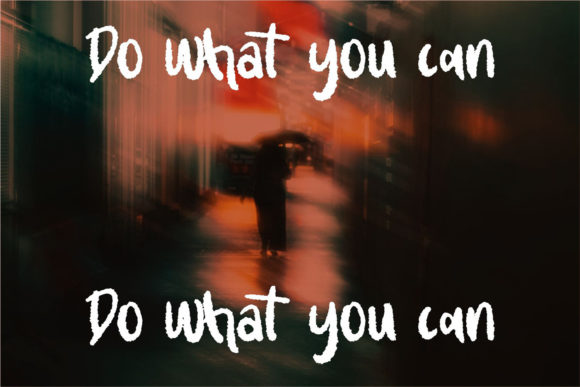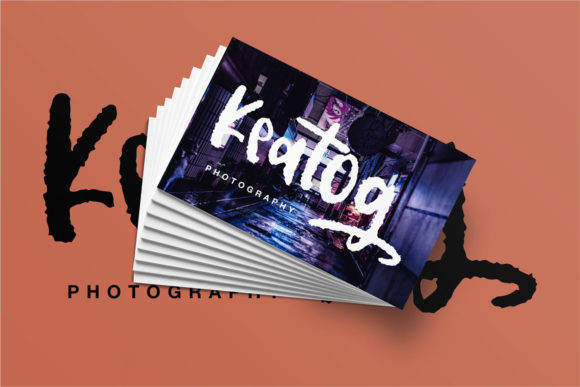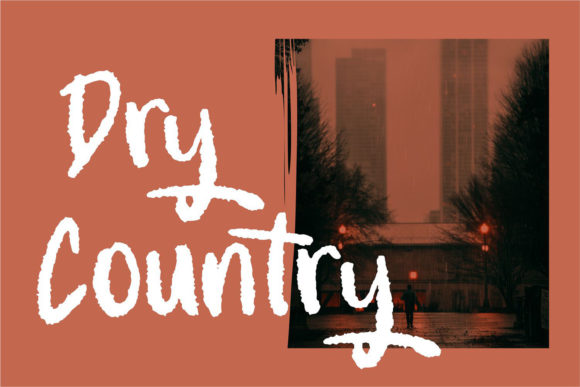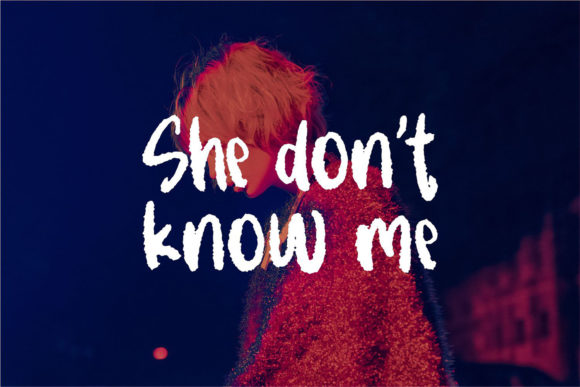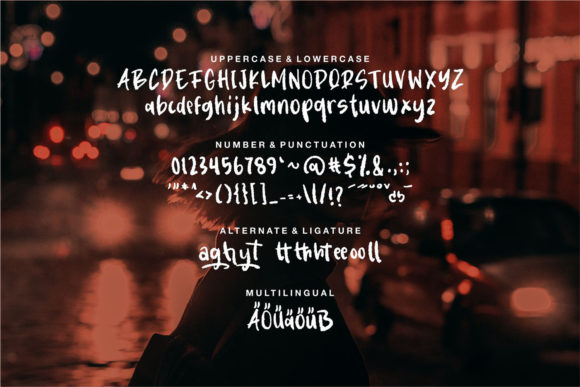
Introduction to Medger Font
You’ve spent hours perfecting the layout of your latest design project, but something’s missing. The words on the page are just a bit too plain, and you can’t quite put your finger on what’s off. This is where the right font comes in – a game-changer that elevates your design from bland to grand. Enter the Medger Font, a stunning display font that adds a touch of rugged sophistication to any creative project.
Whether you’re working on a corporate identity, a music album cover, or a YouTube video, the Medger Font is the perfect design resource to give your project the edge it needs. With its cool and rough texture, this font is sure to grab attention and leave a lasting impression. And the best part? It’s PUA encoded, making it easy to access all of the glyphs and swashes you need to get creative.
Key Features of Medger Font
- High-quality, professional font design ideal for creative projects
- Unique, modern design style that adds a touch of sophistication to any creative project
- Perfect for use in logos, branding, typography, and other design elements where a high-quality font is required
Honest Review: Medger Font
Here are some things that work well with the Medger Font:
- ✨ Versatile and adaptable to various design styles
- ✨ Clear and readable even on a transparent background
- ⚠️ Limited character set, which may not be suitable for complex designs
- ⚠️ Some users may find the font’s style too generic or unremarkable
Overall, I’d say the Medger Font is a great resource for designers looking for a simple, high-quality font to add some visual interest to their creative project. While it may not be perfect, it’s definitely worth considering for your next design project.
To get the most out of the Medger Font, use it with a transparent background to create a clean and modern design. You can also experiment with different font sizes and styles to add visual interest to your design.
Common Use Cases for Medger Font
The Medger Font is commonly used in creative projects such as logo design, branding, and digital marketing materials. It is also suitable for use in presentations, reports, and other business documents.